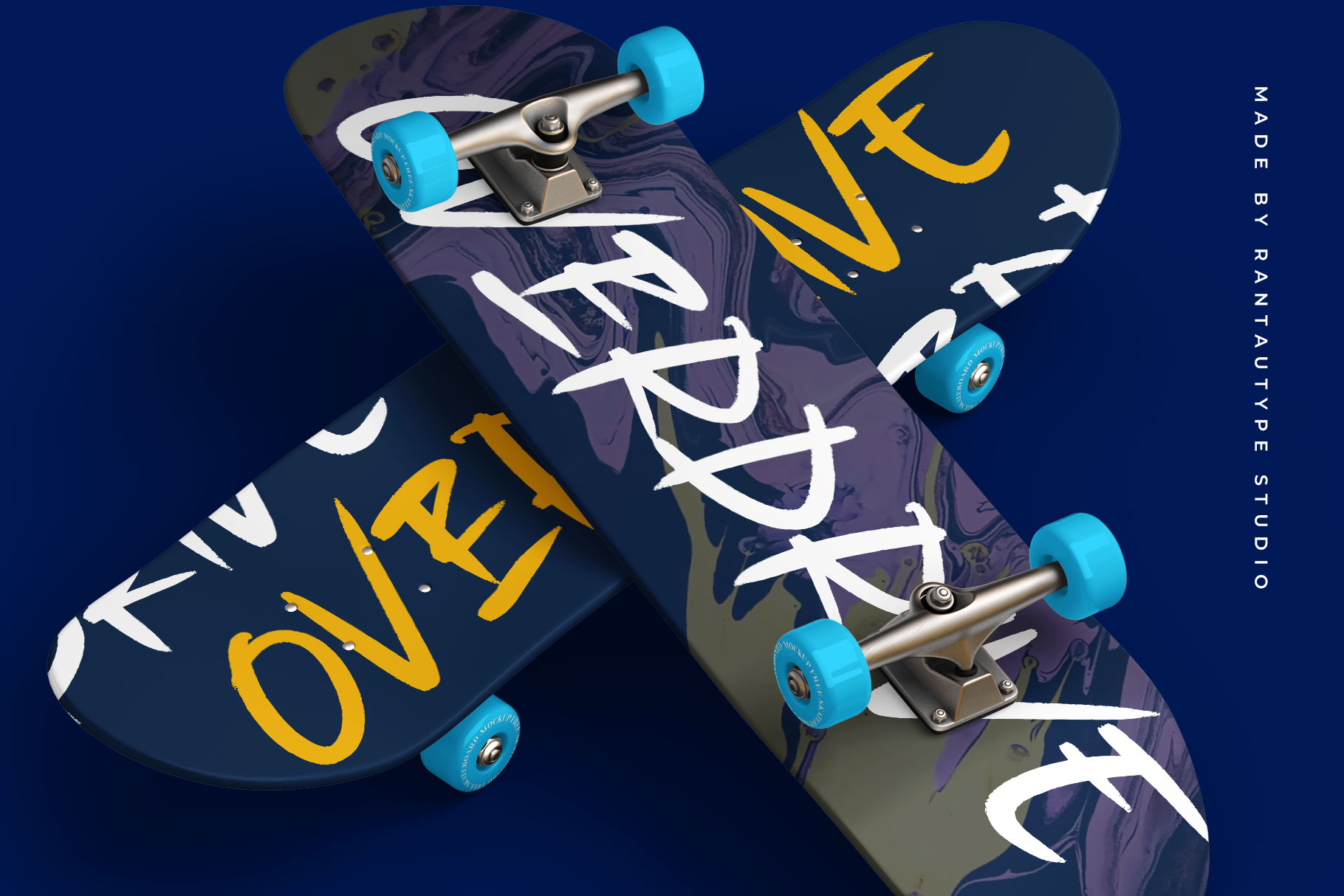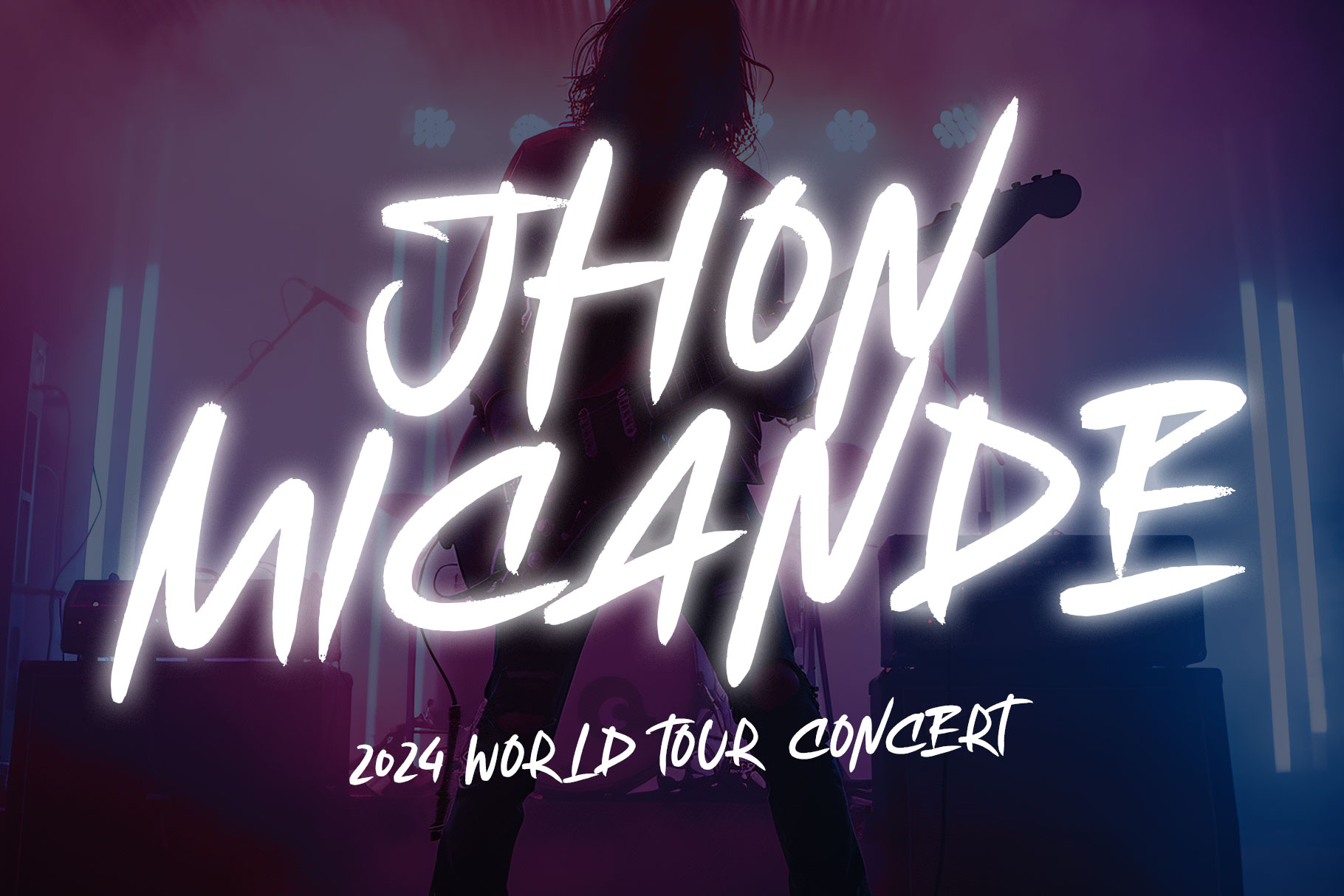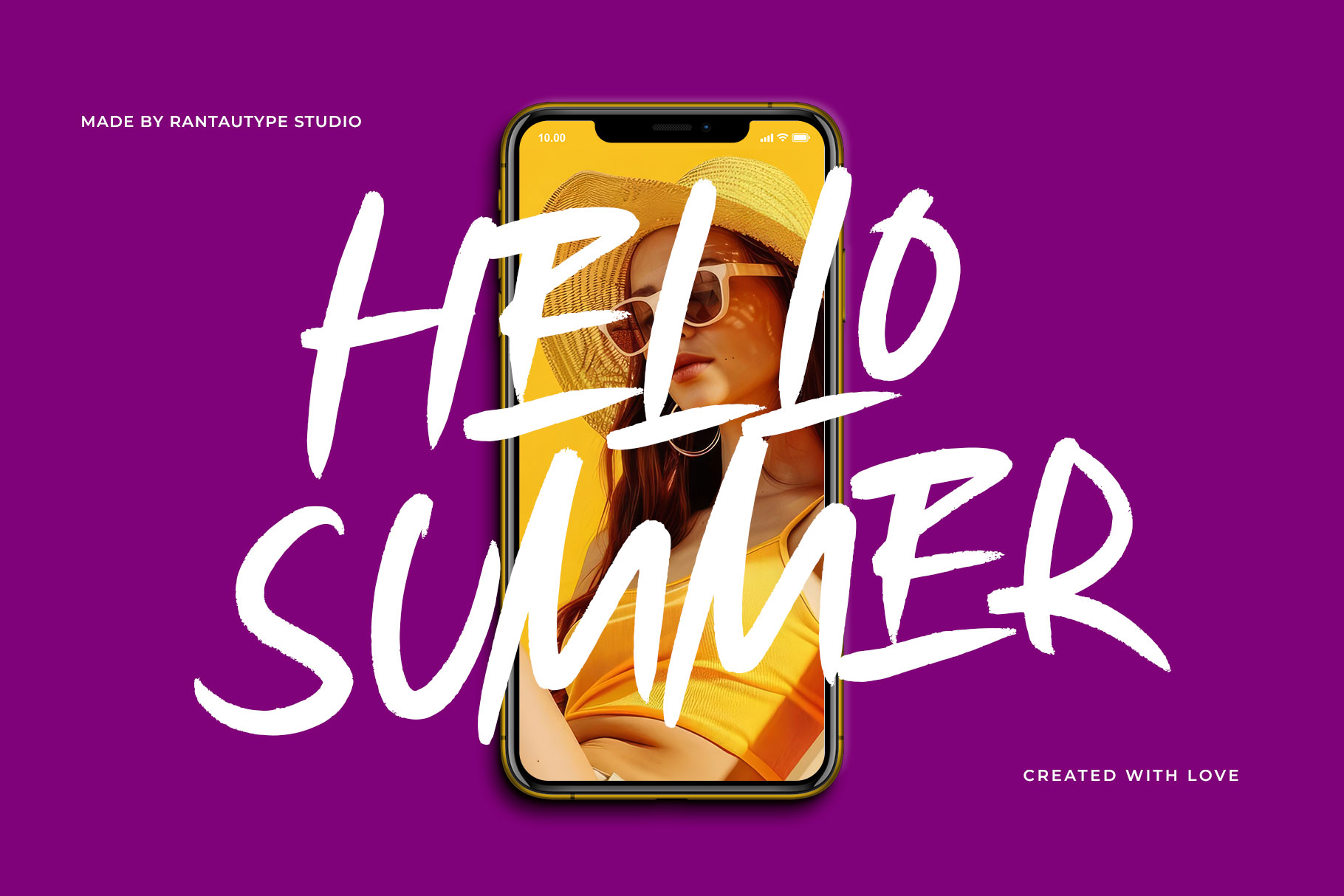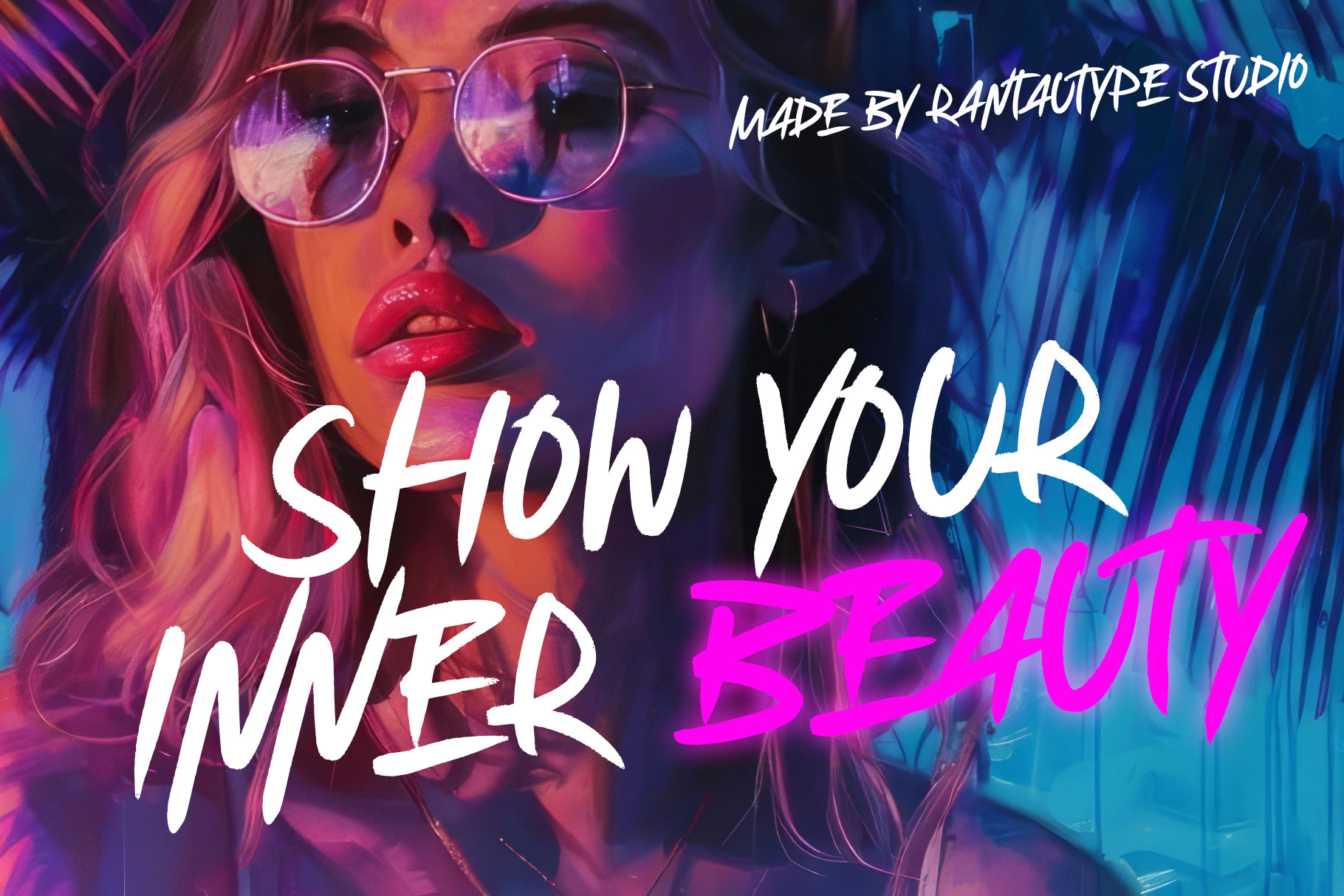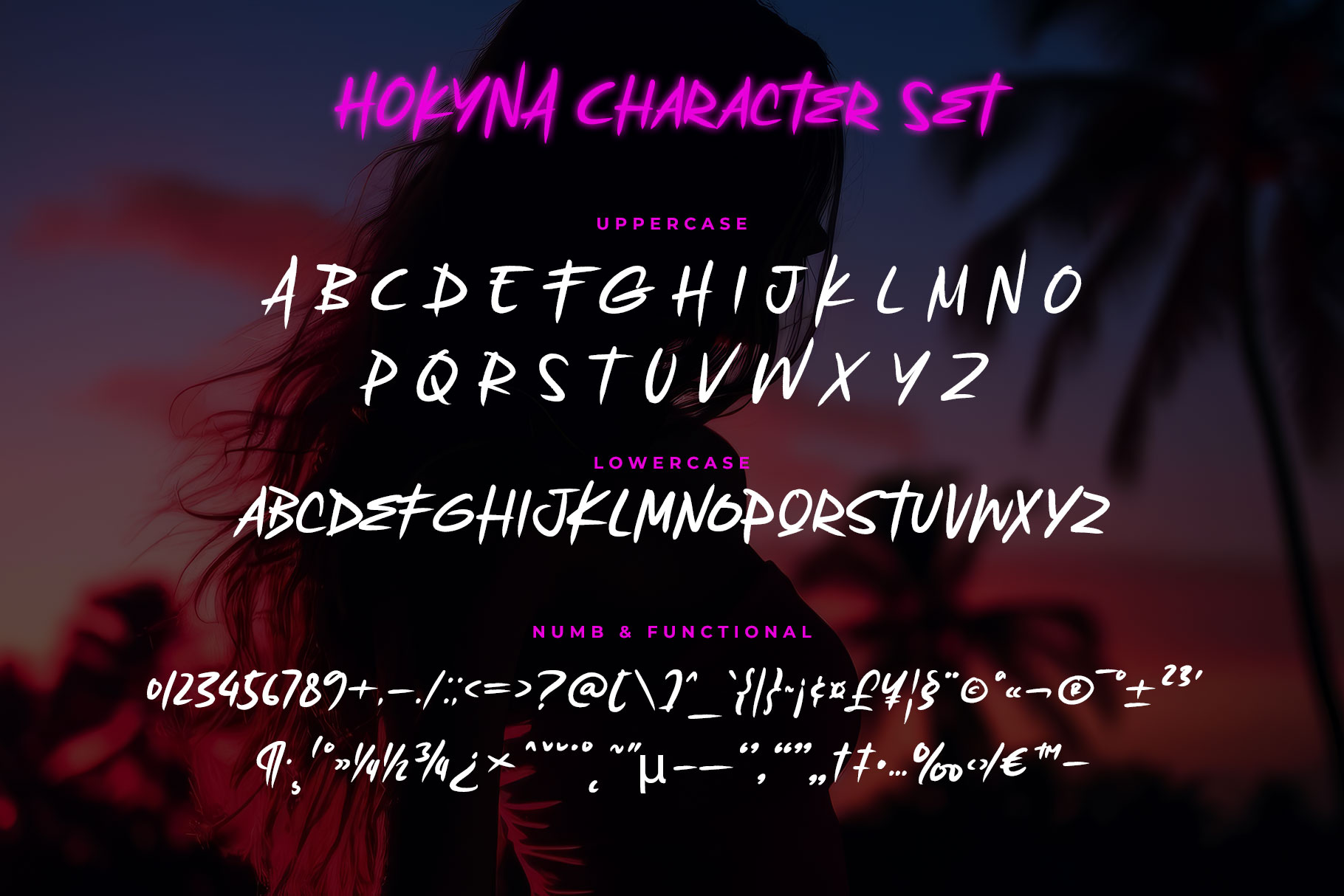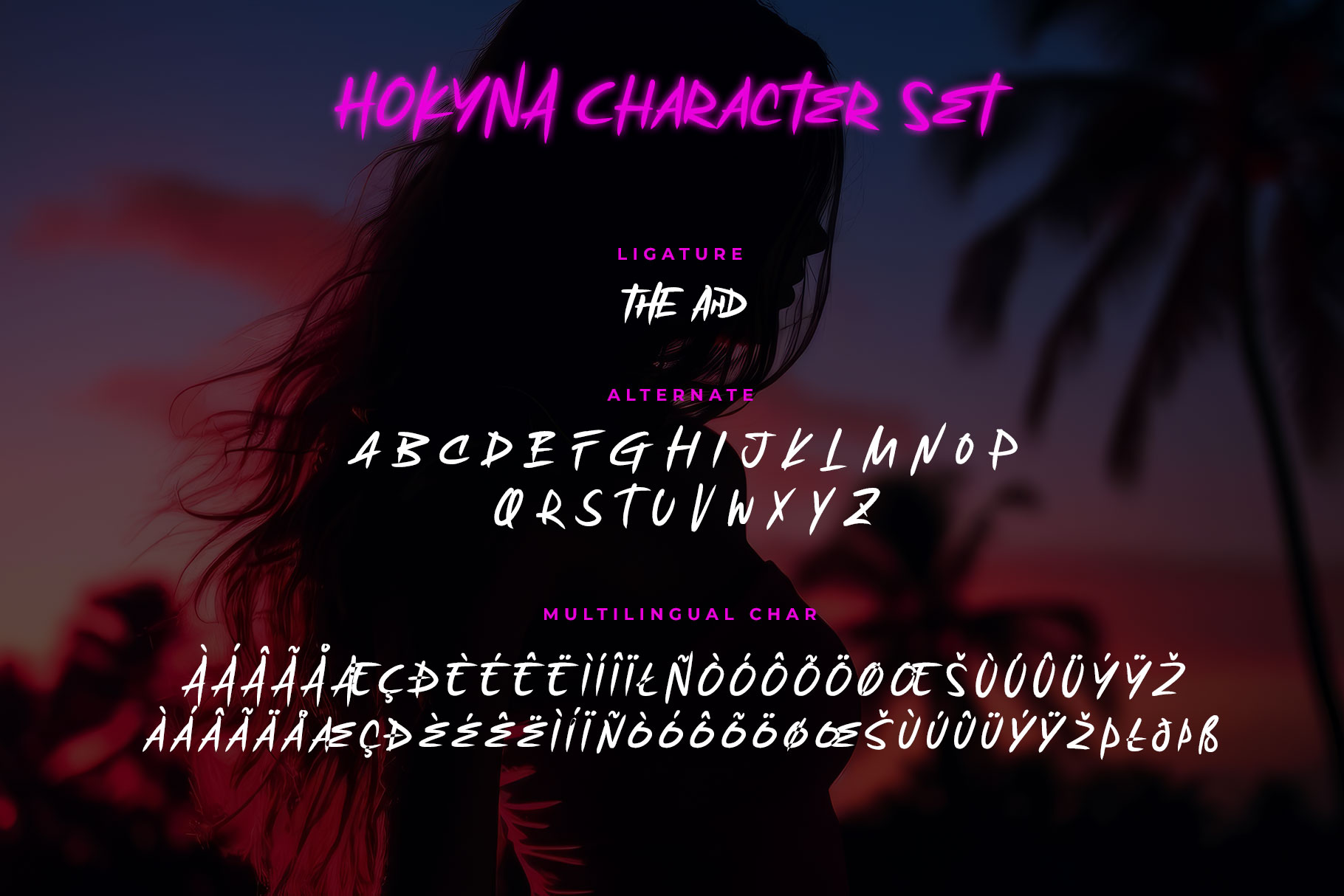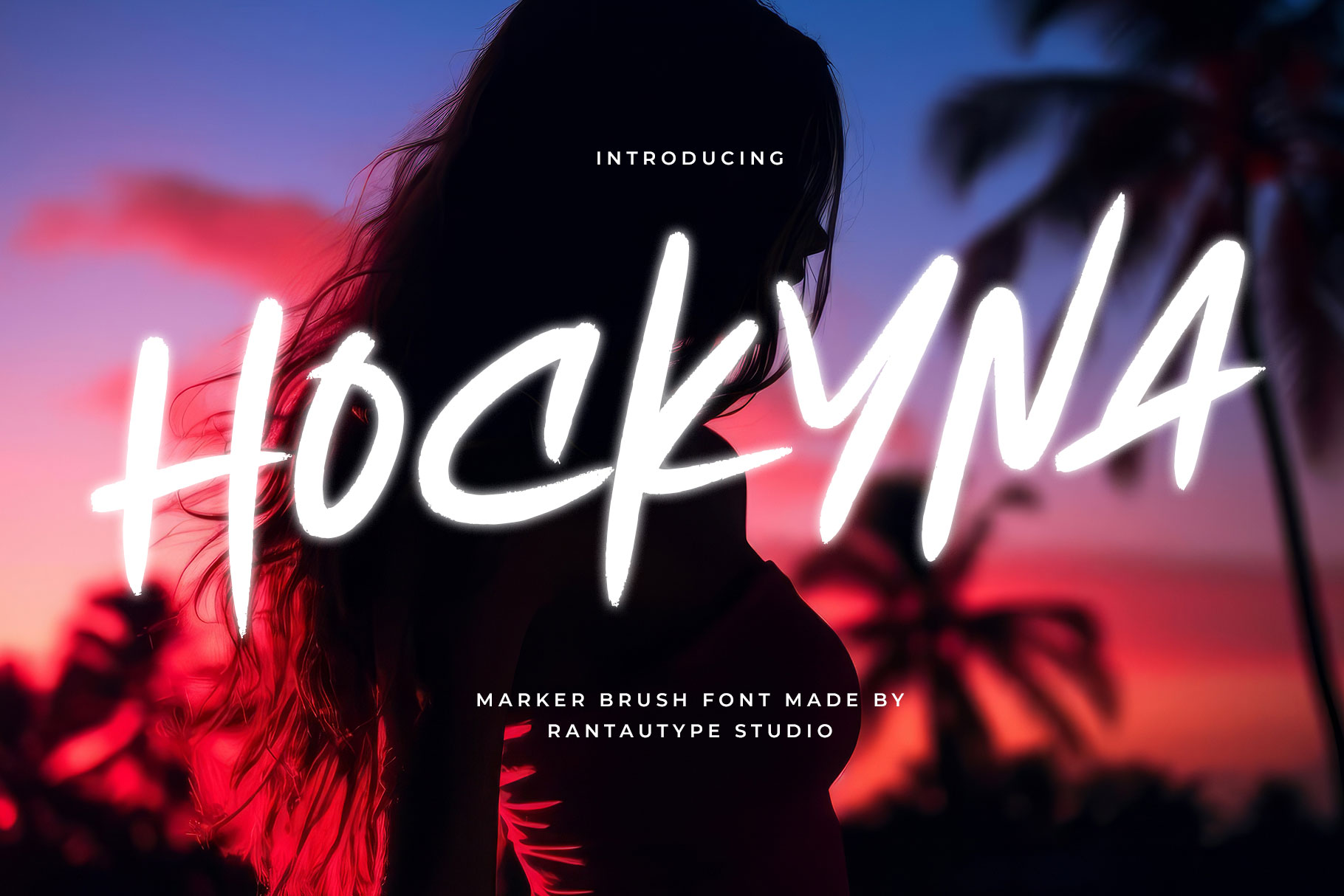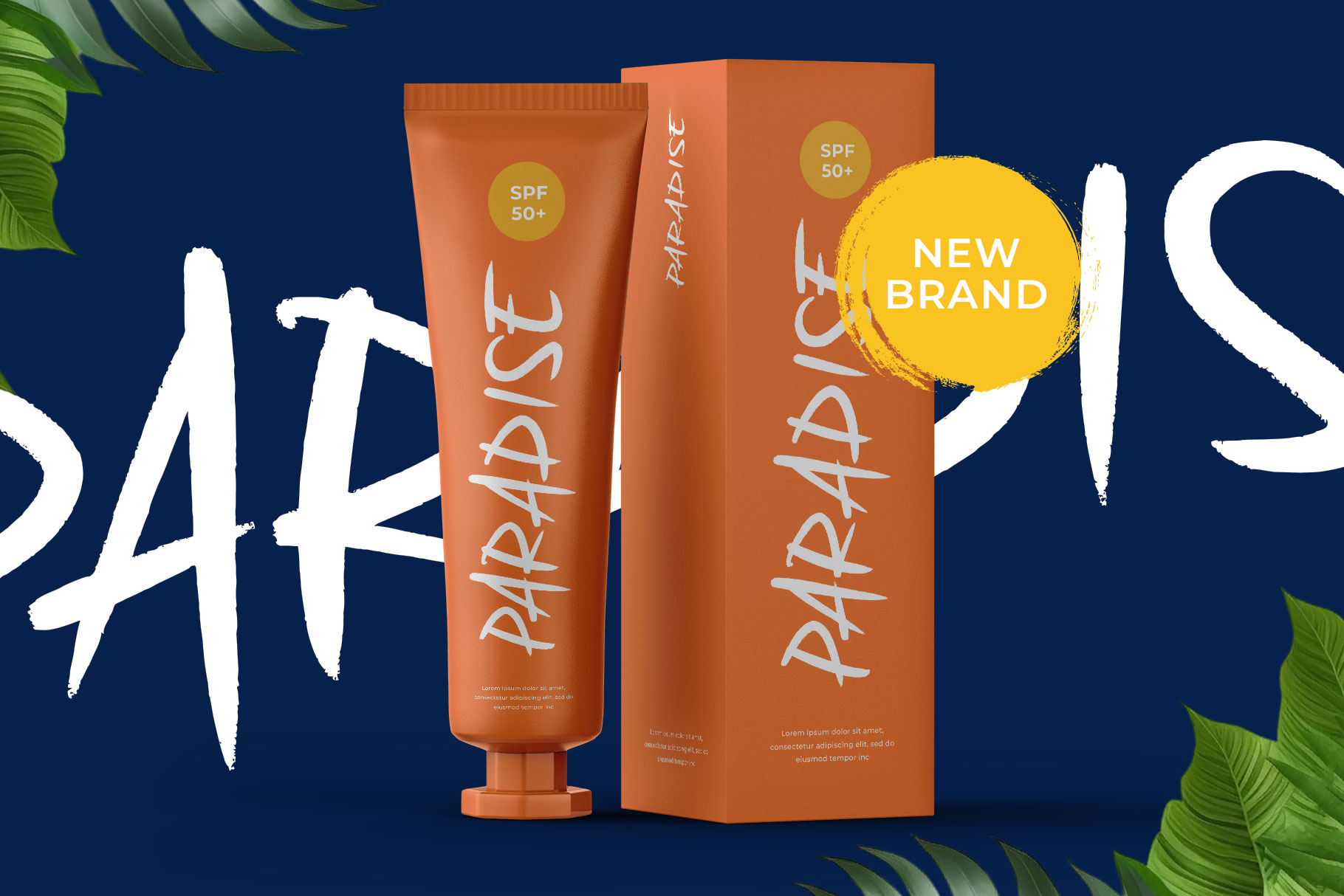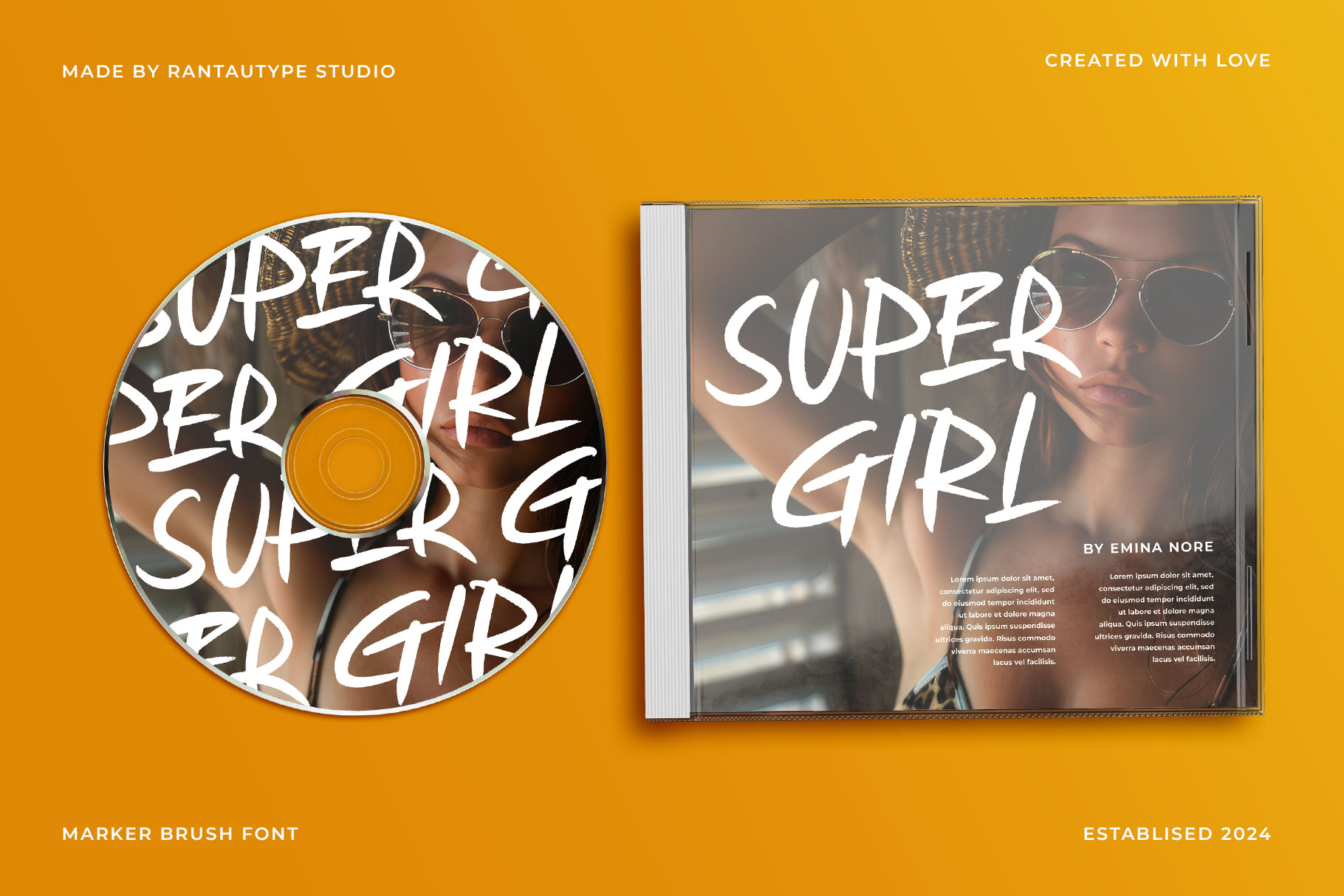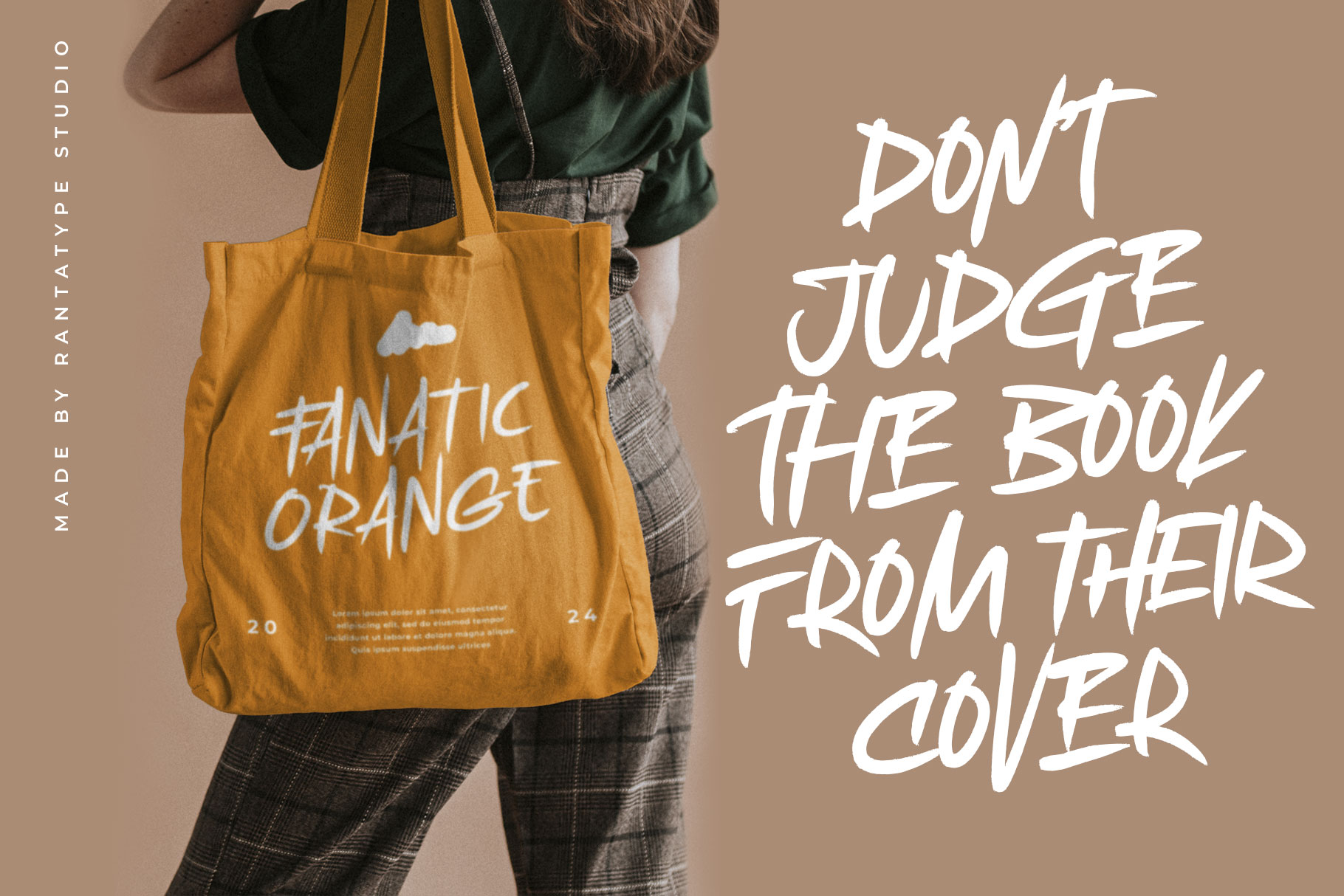
Hockyna Marker Brush Font
Hockyna is marker font with itensity and energic font. Hockyna bring sharp of natural marker, which one can make stunning project design.
Hockyna is a perfectly choice for any creative endeavor, chic, lifestyle design such as logos, advertisements, watermark on photography, stationery, branding project, display and magazine, invitation, corporate brand, product design, label, business project and other project with handwritten taste.